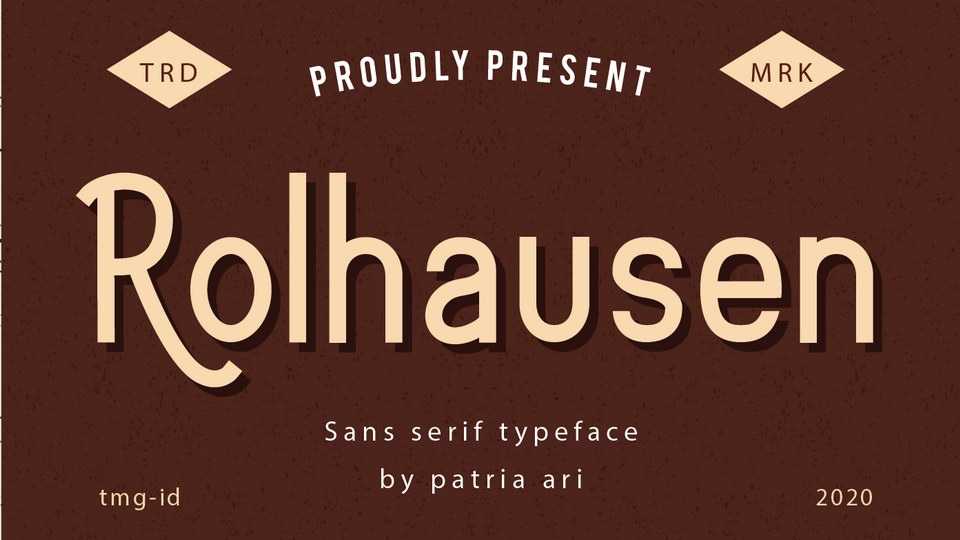
Download Rolhausen font, a vintage sans serif font family in two styles which is suitable for you who needs a typeface for headline, logotype, apparel, invitation, branding, packaging, advertising etc.